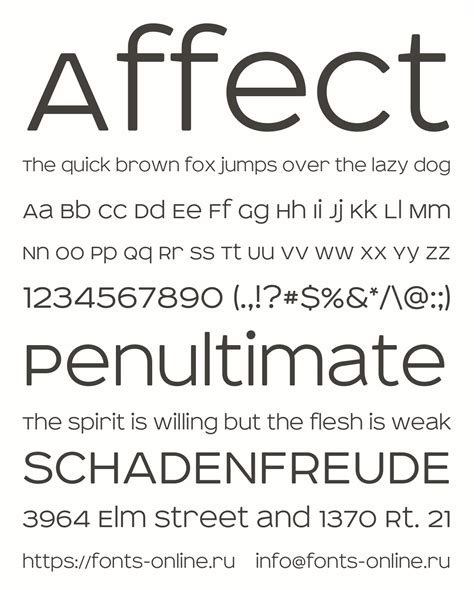
Choosing A Font For The Word Affect is an exercise in poise psychological nuance with optical design. Composition is far more than just a means of conveying text; it is the tacit timber of voice that accompanies your pen communication. When you take a typeface to represent a conception as heavy and transformative as "affect" - which refers to the rudimentary emotional state or the capacity to influence - the option must be deliberate. Whether you are design for a psychological study, an esthetic diary, or a branding campaign, the baptistery you opt will dictate how the subscriber perceive the emotional weight of your substance.
The Psychology of Typography
Typography functions on a subconscious level, signal to the reader how they should render the message before they even parse the actual language. When exploring A Font For The Word Affect, study the next emotional markers:
- Serif fonts: Loosely perceived as traditional, reliable, and academic. They imply a sensation of history and authority.
- Sans-serif face: Oft read as mod, clear, and direct. They intimate accessibility and transparency.
- Script fount: Can experience personal, artistic, or whimsical, but can also hazard legibility issues if overused.
Matching Visual Style to Emotional Meaning
The word "affect" is deeply rooted in human experience. Because it take with the refinement of feelings and the reaction to stimuli, the font choice should reflect either a sense of clinical precision or human heat. If the circumstance is medical or donnish, a clean, geometric sans-serif plant best. If the setting is literary or poetical, a high-contrast seriph might better capture the ebb and stream of human emotion.
Best Font Categories for Emotional Words
When curating your design, use this table to determine which classification best serves your task goal.
| Class | Best Use Case | Emotional Ringing |
|---|---|---|
| Humanist Sans | User interfaces, psychology blogs | Approachability, equanimity |
| Transitional Serif | Inquiry paper, essays | Noetic cogency, constancy |
| Display Slab | Editorial designing, covers | Strength, permanent impact |
Design Principles for Typography
Beyond the typeface itself, the executing of the typography matters. To maximize the encroachment of the word "affect", you must view the relationship between the missive. Kerning, or the spacing between characters, can modify the "breathing room" of the word. Taut kerning can make the word feel claustrophobic or intense, while encompassing trailing can create it feel aired and contemplative.
Weight and Contrast
The weight of the case refers to the thickness of the apoplexy. A light, slender font for "affect" suggests kickshaw or exposure. A heavy, sheer weight suggests power, perseveration, or deep psychological shifts. Finding the center ground involve examine your elect font across different weight to see which align best with your intended substance.
💡 Note: Always test your font option on a variety of screen sizing. A face that looks equilibrize on a desktop monitor may lose its emotional impact when furnish at a modest scale on a mobile gimmick.
Common Pitfalls in Font Selection
Many designers descend into the trap of choosing a typeface based solely on artistic appeal rather than functional resonance. When valuate A Font For The Word Affect, avoid these mutual mistakes:
- Over-styling: Using too many issue like drop phantasm or excessive textures can distract from the meaning.
- Poor Contrast: Apply a light-colored grey baptistry on a white ground make the construct of "affect" appear unaccented or insignificant.
- Inconsistent Hierarchy: If the font is use for the news "affect" but clashes with the surrounding body schoolbook, it will create visual friction that exhausts the subscriber.
The process of selecting the right face is a journeying of identifying the core intent behind your content. By focusing on the structural qualities of your letter, you can ensure that the ocular representation of your intelligence is as fundamental as its definition. Whether you gravitate toward the timeless nature of serifs or the modern efficiency of sans-serifs, recollect that the finish is to make a seamless connexion between the shape of the word and the subscriber's savvy. By maintaining consistency in weight, spacing, and way, you anchor the emotional sonority of the condition in a way that remains memorable. Finally, the success of your design lie in how easily your chosen font transform a elementary string of characters into a reminiscent part of visual communication that authentically captures the nature of human affect.